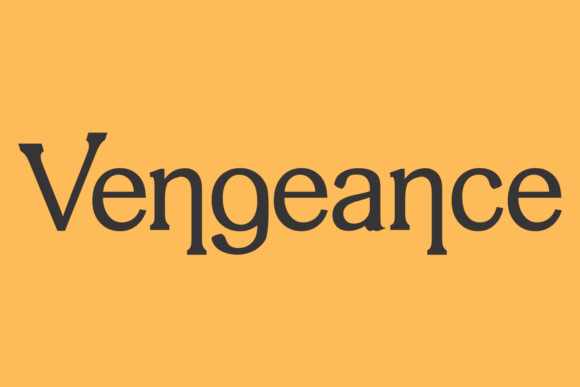
Prepare for a journey beyond the ordinary with Vengeance Font—a display font that commands attention with its bold and rebellious spirit. This non-traditional slab typeface breaks the mold, injecting a touch of raw energy into your designs.
Unleash the power of Vengeance Font and watch your words transform into a visual masterpiece. Its sharp angles and aggressive strokes evoke a sense of strength and determination, making it the perfect choice for headlines, logos, and any design that demands undivided attention.
With Vengeance Font, you're not just acquiring a typeface—you're forging a connection with a font that reflects your own audacity and passion. Let its rebellious spirit inspire your creativity and ignite the fire within your designs.
Dive into the world of Vengeance Font and discover a new realm of typographic possibilities. Its unconventional design will captivate your audience, leaving an unforgettable impression that lingers long after they've encountered your words.